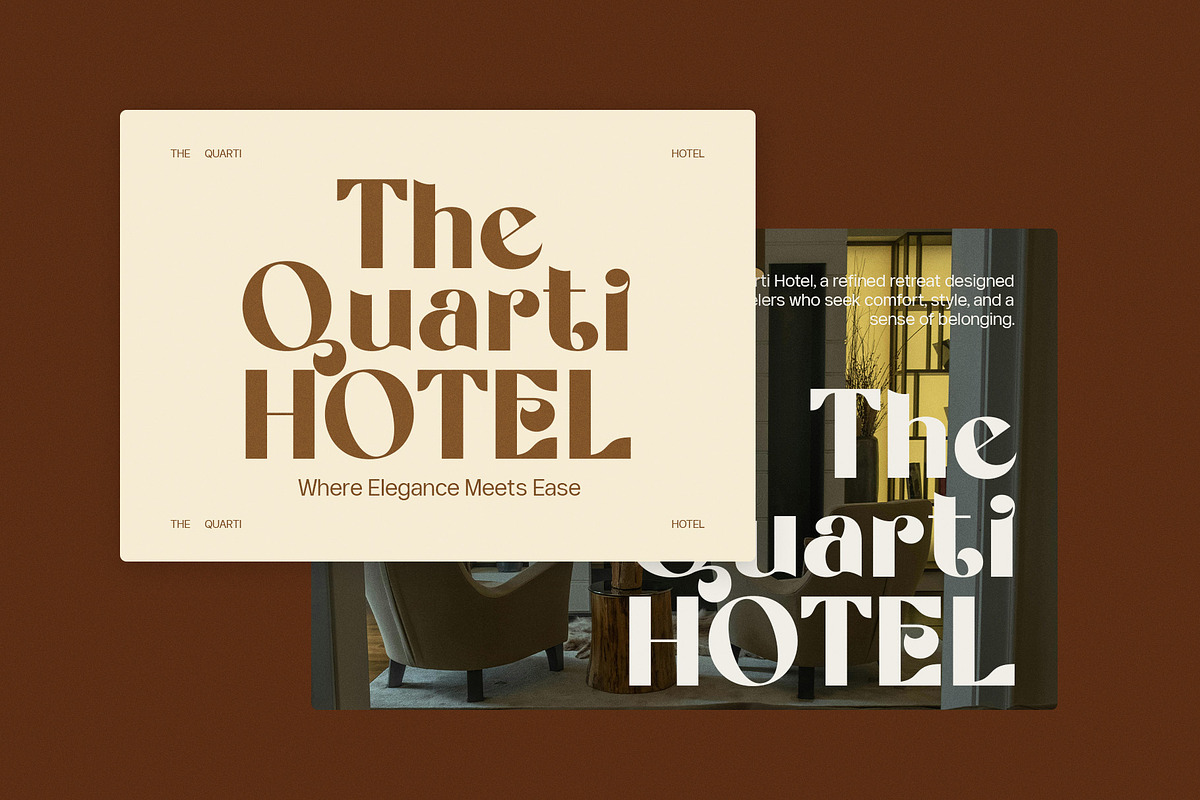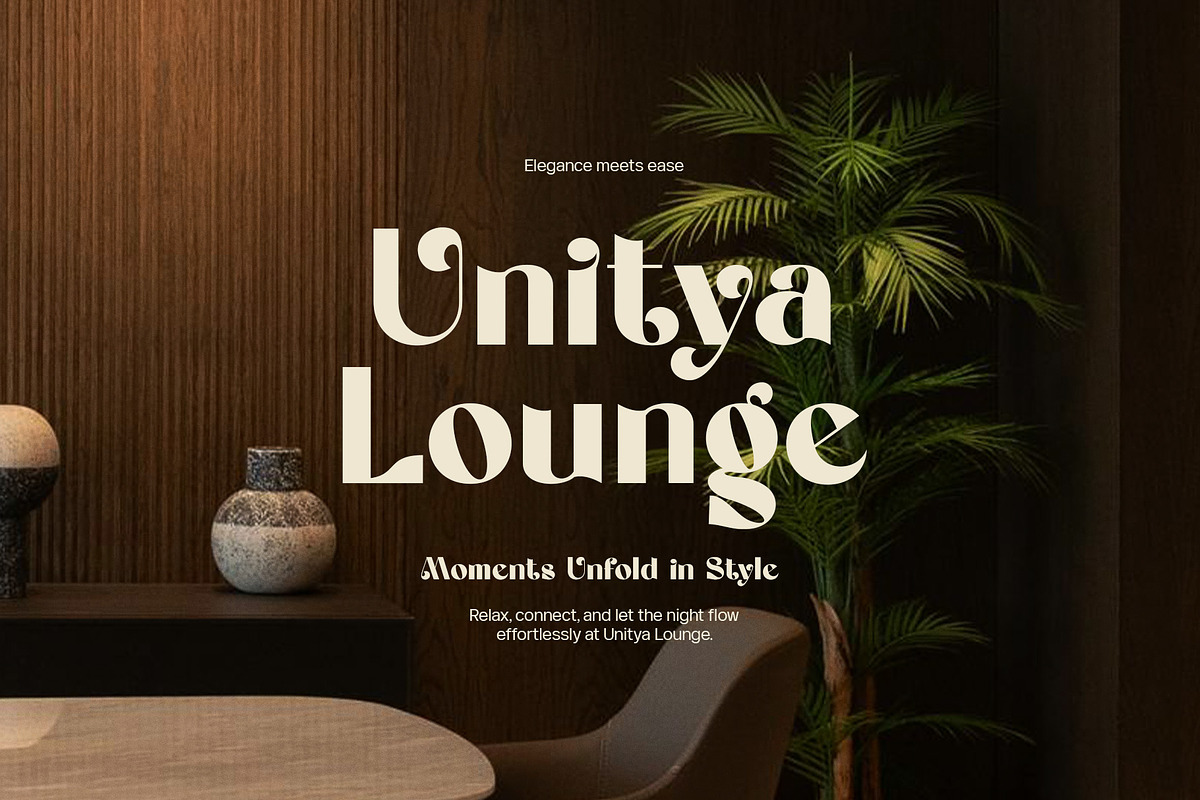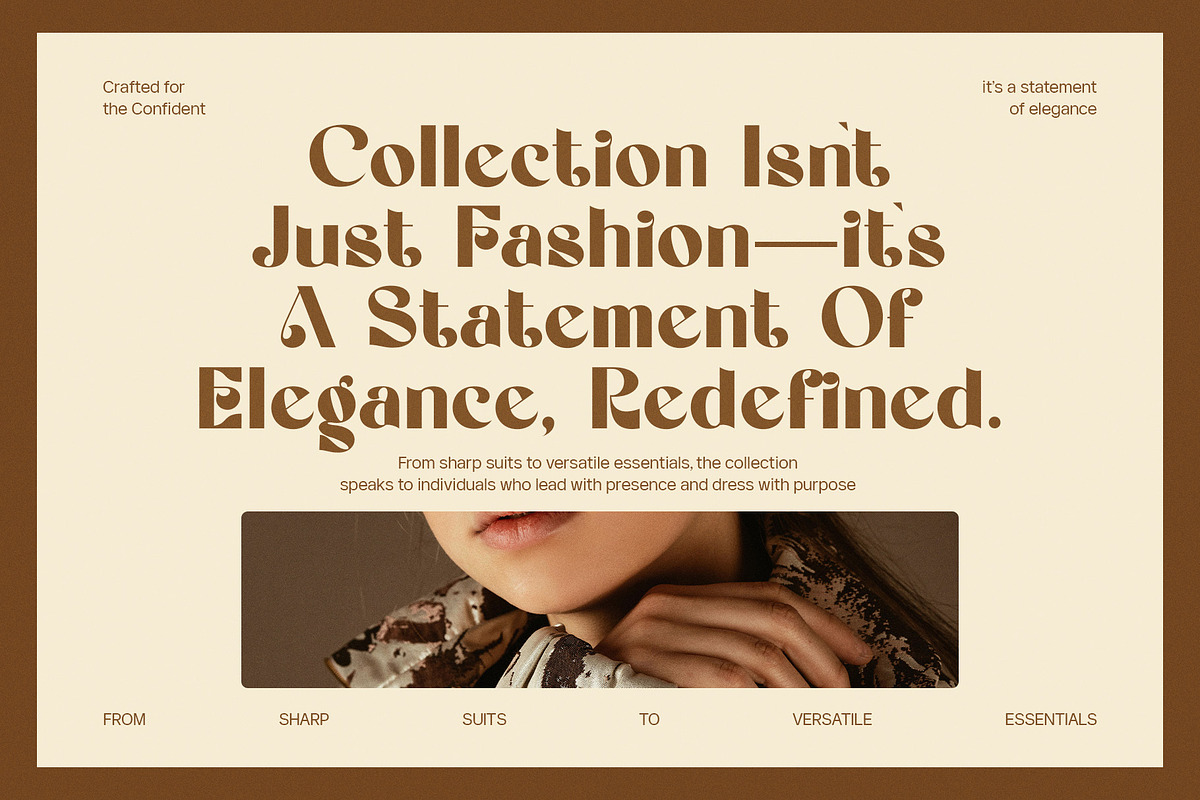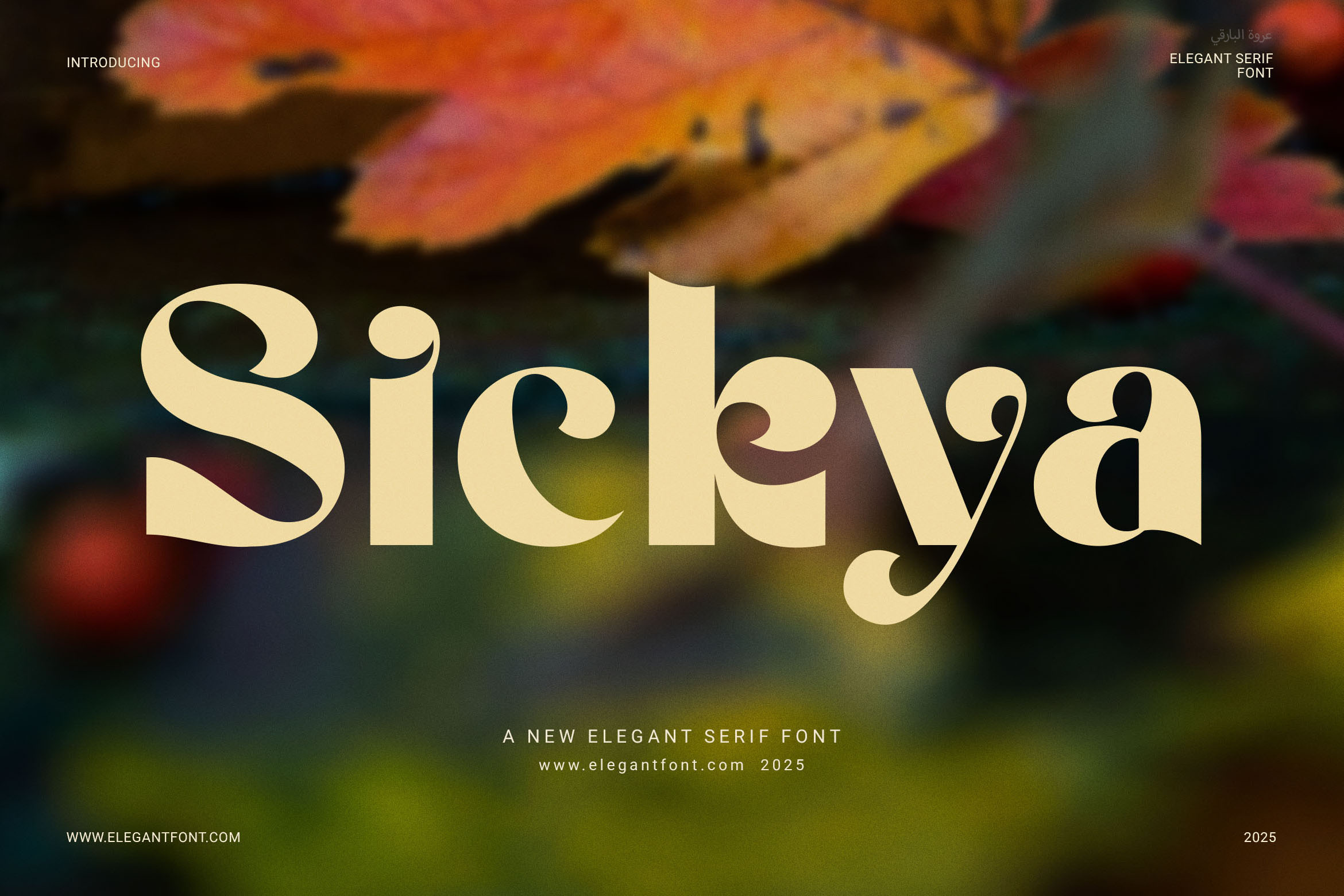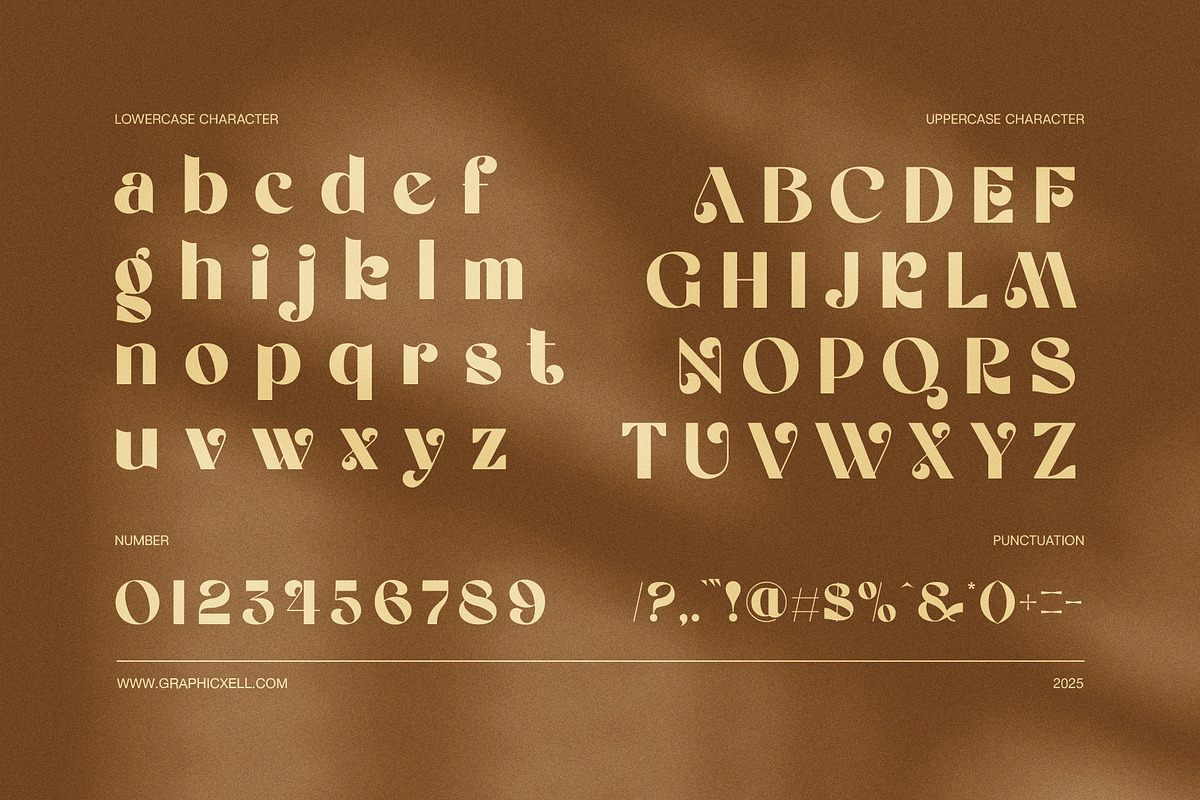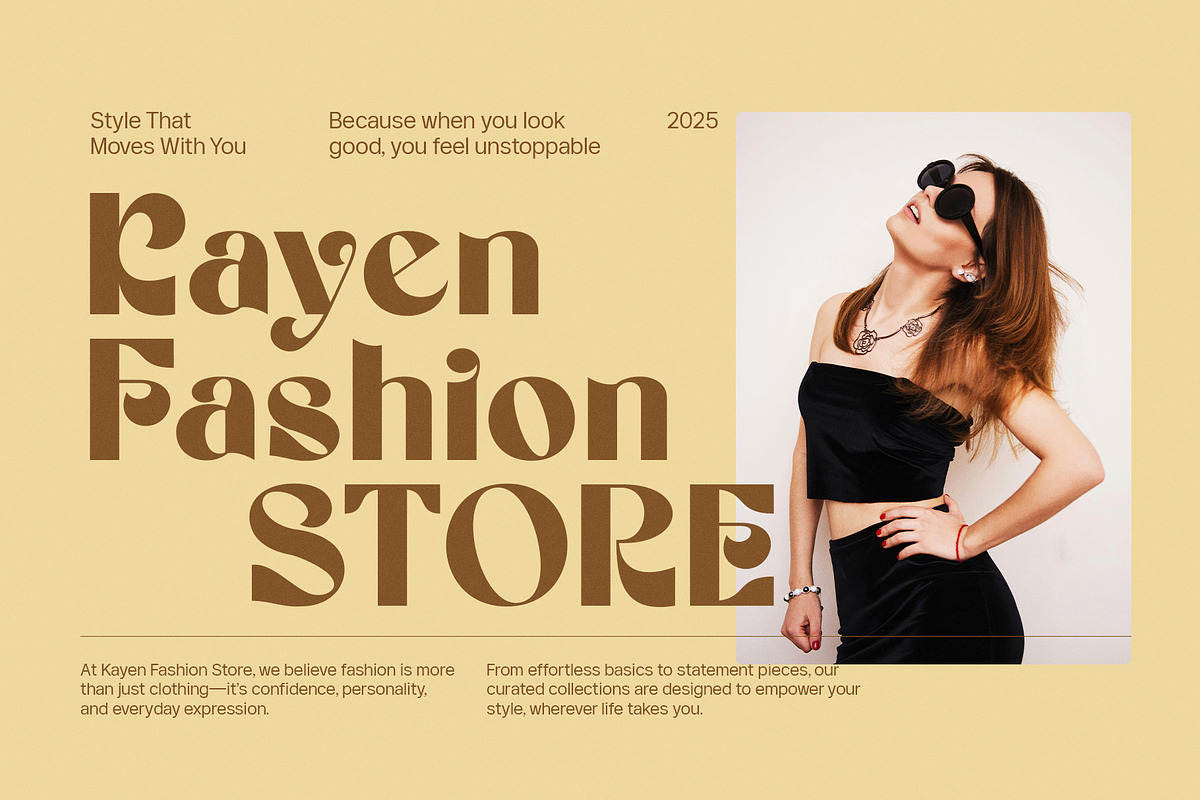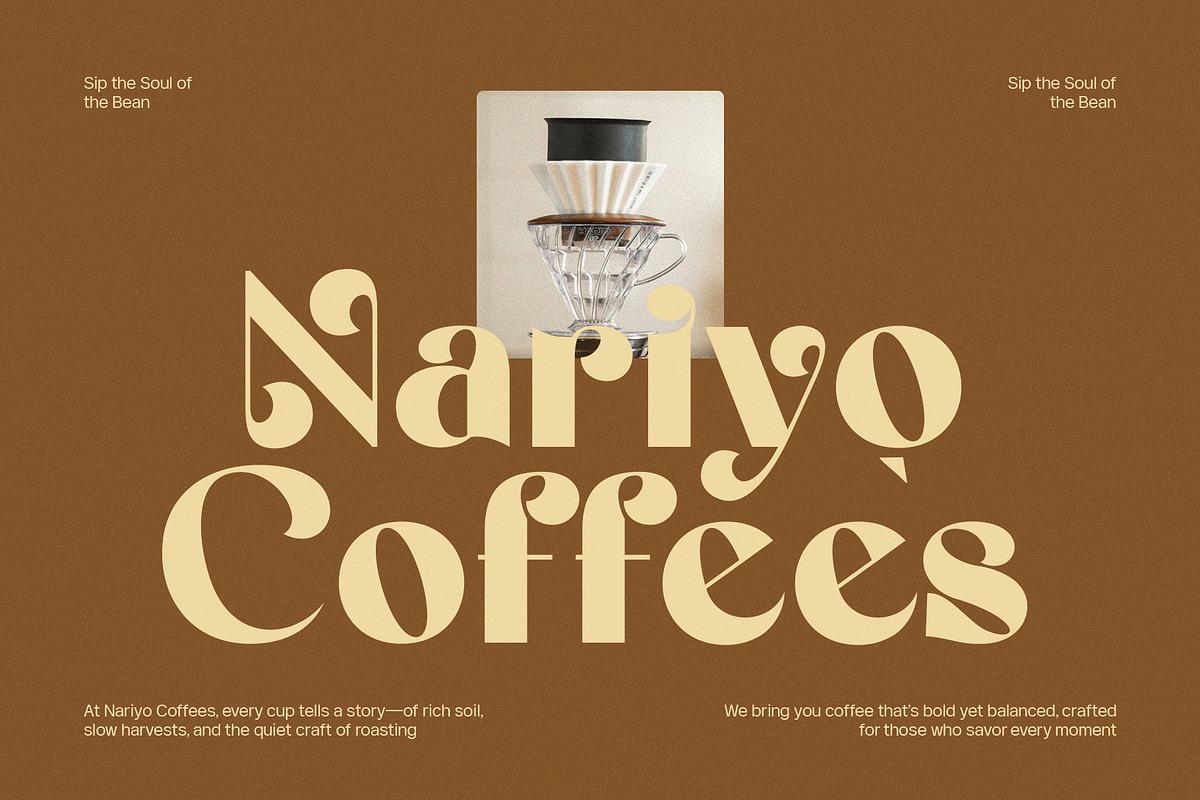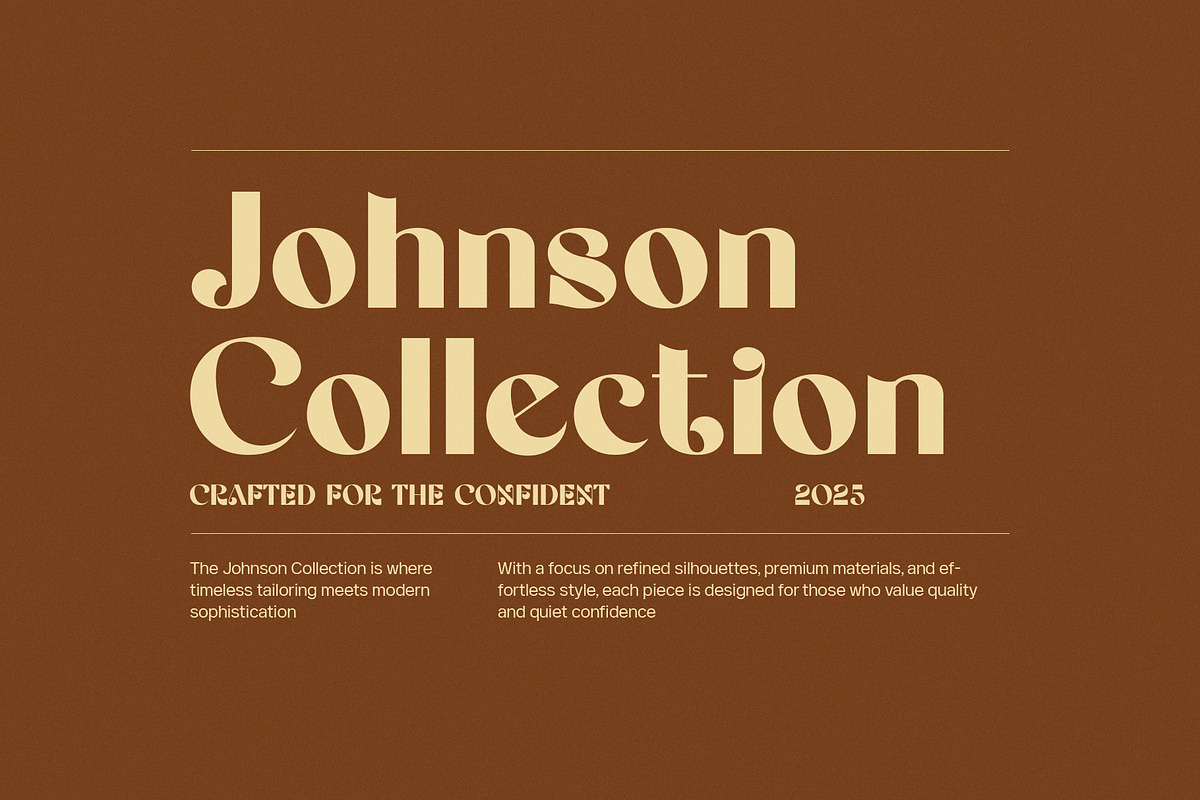
Sickya Elegant Serif Font
Sickya Serif Font – Bold Elegance & Modern Flair
Sickya Serif Font is a striking serif display typeface designed for creative professionals who want strong visual impact. With bold strokes, sharp serifs, and clean edges, it brings character and clarity. Whether you work on branding, titles, or packaging, this font helps you shine.
Features That Make It Shine
First, Sickya Serif offers standout display qualities:
Bold weighted strokes that draw attention at large sizes
Sharp serif endings that offer a modern yet classic touch
Full character set—uppercase, lowercase, numerals, punctuation—to ensure design flexibility
Excellent legibility even when used on print or digital media
Moreover, it includes stylistic alternates or ligatures (if offered) so you can adapt style without extra work. Also, the smooth curves and contrast make it easy to pair with sans serif fonts, script fonts, or minimal fonts, depending on your project needs.
Where & When to Use Sickya Serif
Because it blends boldness with elegance, Sickya Serif works wonderfully in:
Brand logos and identity designs, especially for fashion, beauty, or luxury sectors
Headline text for magazines, websites, or social media graphics
Product packaging and labels where you need strong presence
Event invitations, posters, and signage
In addition, it suits both modern and vintage design contexts. For example, you can combine Sickya with minimalist layouts to make titles pop. Or pair it with ornate decorative elements to create contrast.
Why Designers Will Love It
Although it is bold, Sickya Serif stays balanced. It avoids being over‑ornate, yet each letterform shows care. Because of its clean lines and sharp details, designers find that it elevates projects without overwhelming other elements. Furthermore, while it looks dramatic at large size, it retains clarity in smaller uses too.
Make Your Message Stand Out
If you're looking for a display serif font that combines bold strength with refined elegance, Sickya Serif Font is your ideal choice. Use it when you want to command attention, convey sophistication, and make every title or logo memorable.